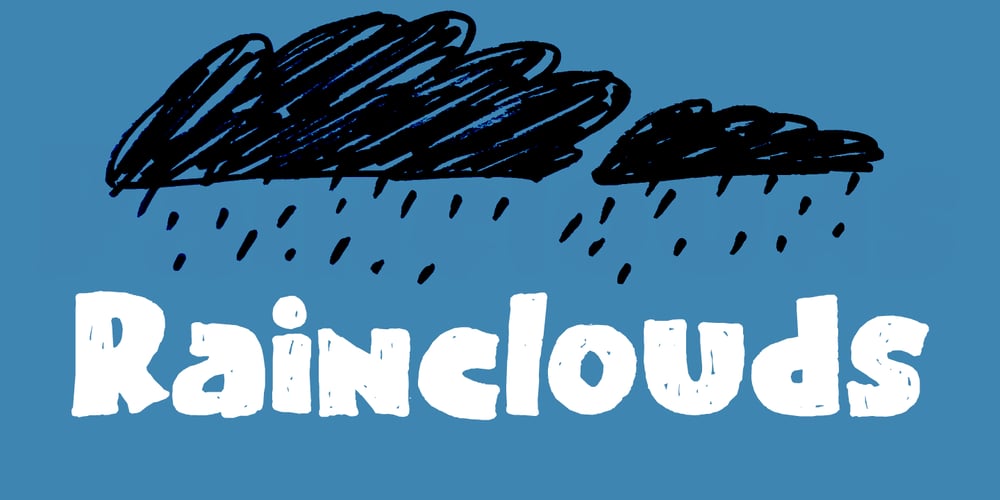
Rainclouds Font Family was designed by David Kerkhoff and published by Hanoded. Rainclouds contains 2 styles and family package options. I was doodling away with a sharpie pen on a rainy day.Hey… wait a minute. A rainy day, a font called Rainclouds… Yep, that’s right, it is called Rainclouds for that reason! ;-)Rainclouds is a fat marker font with a lot of texture and a lot of mouth.